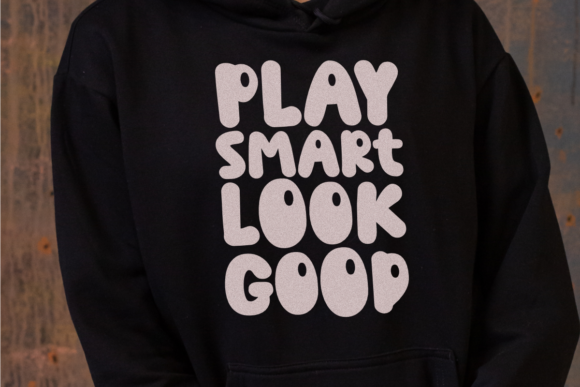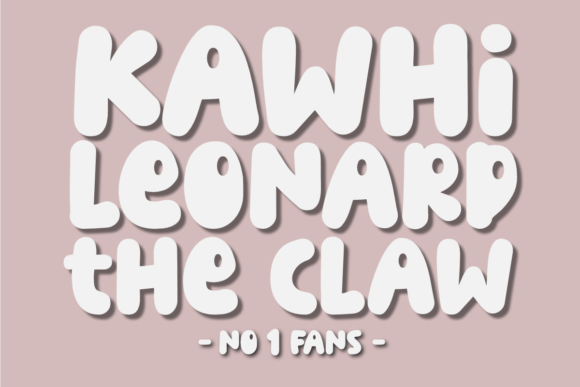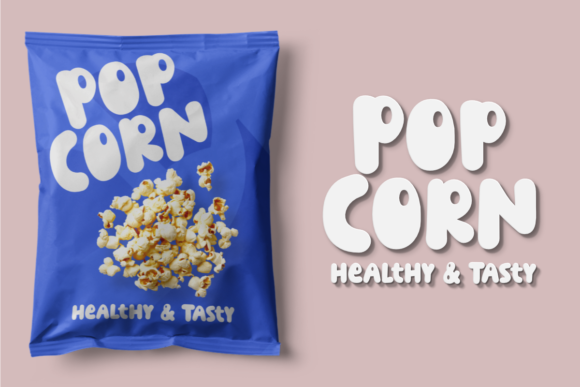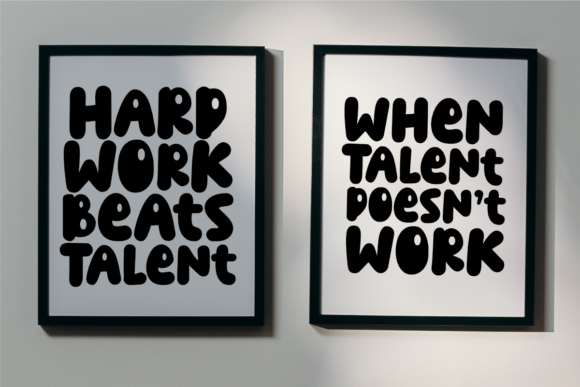
Introduction to Let’s Hoop Font
Enter the Let’s Hoop Font, a bold and playful display font that’s perfect for a wide range of creative projects, from children’s designs and apparel to stationery and product packaging. With its high-quality design and transparent background, this font is a valuable resource for any designer looking to add a fun and eye-catching touch to their work.
Key Features of Let’s Hoop Font
- Unique, playful design perfect for creative projects and sports-related themes.
- Includes a range of characters, including uppercase and lowercase letters, numbers, and symbols.
- Perfect for designers, artists, and hobbyists looking for a fun and engaging font for their next design project.
Honest Review: Let’s Hoop Font
- ✨ Unique and playful design style: The Let’s Hoop Font has a distinctive and whimsical feel that can add a lot of personality to your designs.
- ✨ High-quality graphics: The font is well-crafted and looks great at various sizes and resolutions.
- ⚠️ Limited character set: The font only includes a limited set of characters, which may not be suitable for longer texts or complex designs.
Tips for Getting the Most Out of Let’s Hoop Font
Experiment with different font sizes, colors, and combinations to create a unique design. Use the transparent background to layer the font over images or other design elements.
The Let’s Hoop Font is ideal for sports-themed designs, such as basketball or volleyball team logos, or for creative projects that require a fun and playful tone.